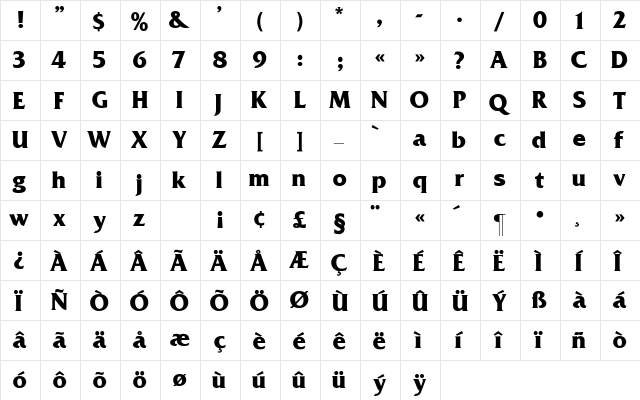
Frizz_Quadrata-Bold Regular
Design Context for Frizz_Quadrata-Bold Typeface
Frizz_Quadrata-Bold offers clean, dependable letterforms without strong stylistic allegiance, making it a practical choice for designers who need flexibility. Its bold stroke weight gives it real presence on the page.
Pro Tip: Use Frizz_Quadrata-Bold in both headline and body roles to test its range before committing to a single application.